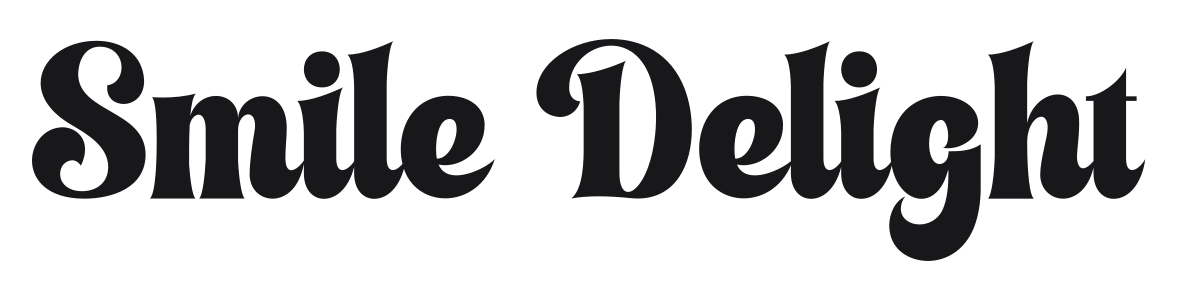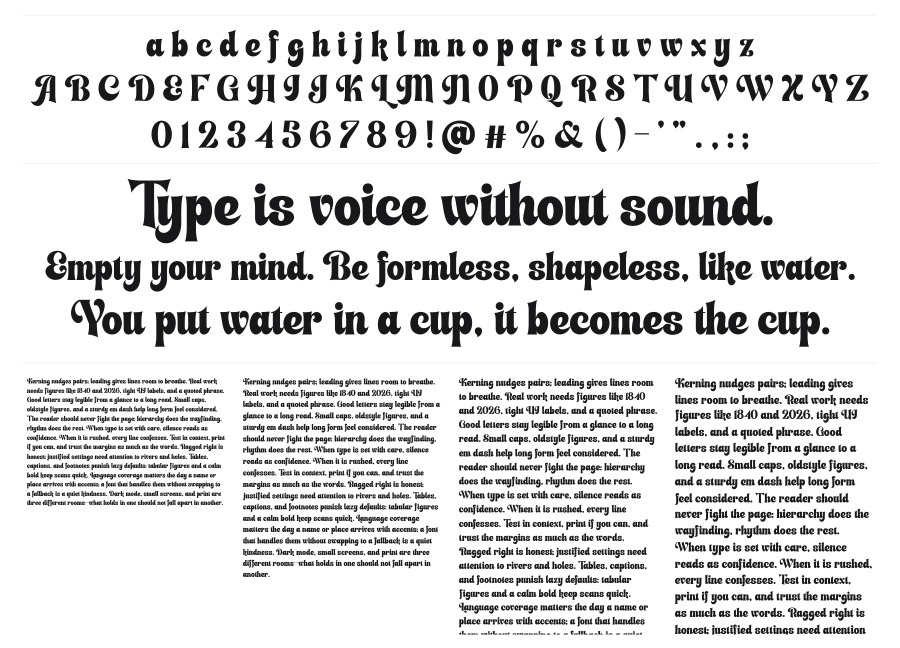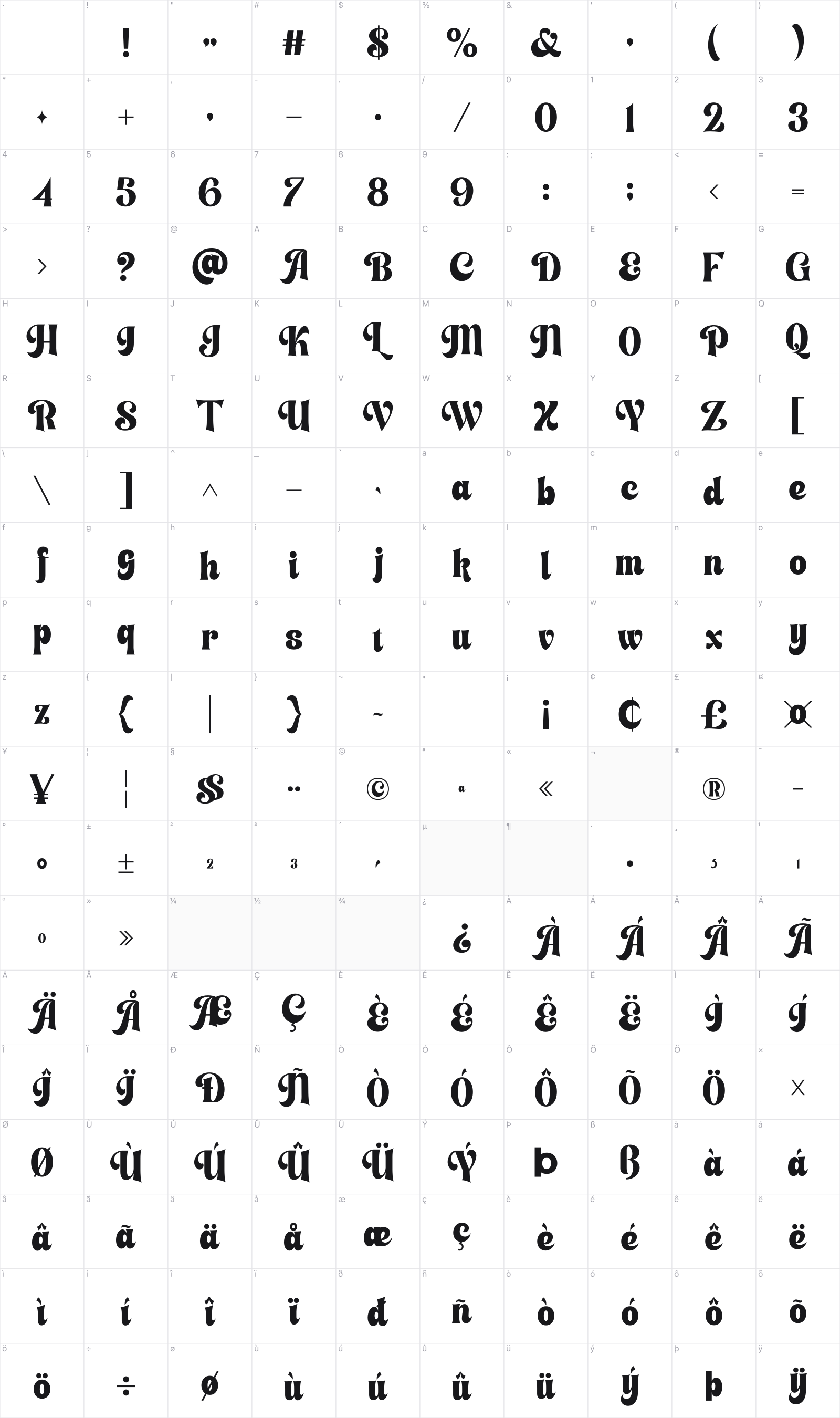
Smile Delight
Smile Delight is a heavy retro serif bursting with 1960s-70s personality, built on extreme stroke contrast and wide, curvaceous proportions. The bold curves, ball terminals, and dramatic thick-to-thin transitions give it a warm, joyful energy that reads instantly at large sizes. It suits branding, packaging, and poster work where nostalgia and friendliness need to hit hard.